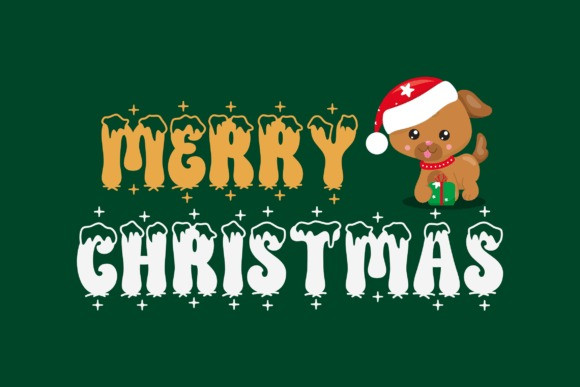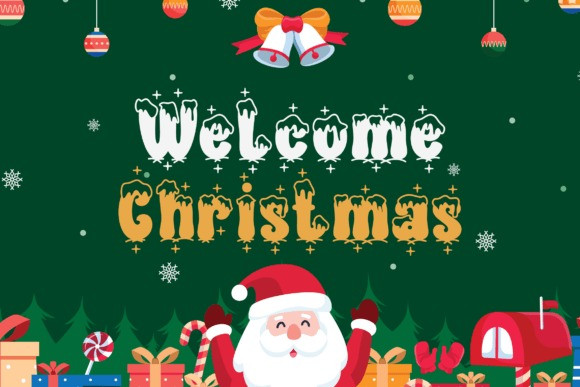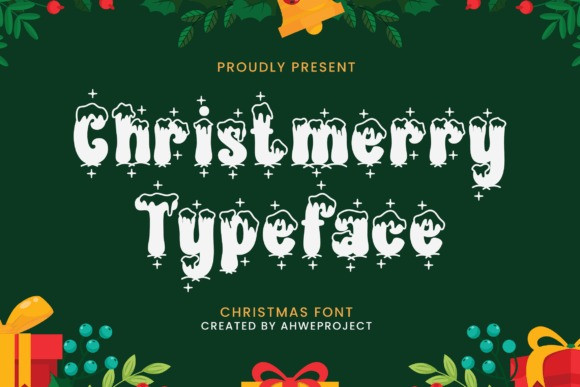
Christmerry Font
Christmerry Font is a display font in a Christmas theme, perfect for sleigh rides and caroling. It’s very suitable for Christmas cards, wedding invitations, branding, stationery, blog design, custom art, custom stamps, custom embossers, or any design purpose.